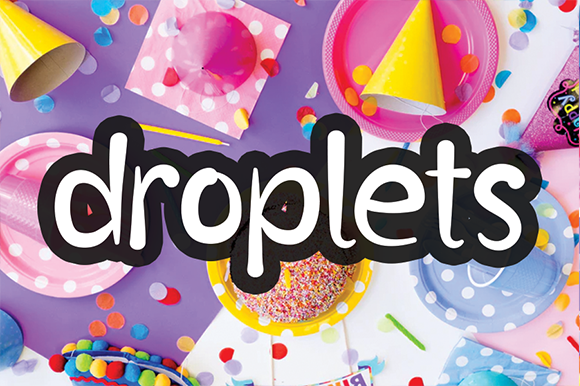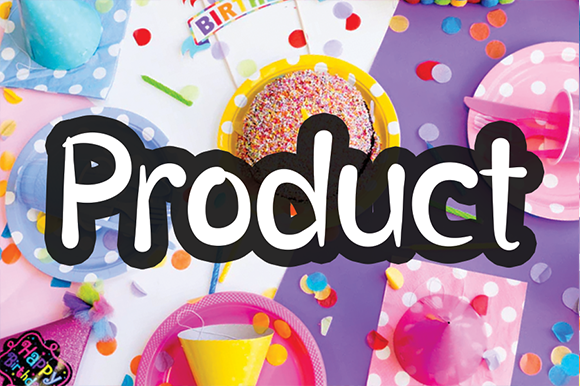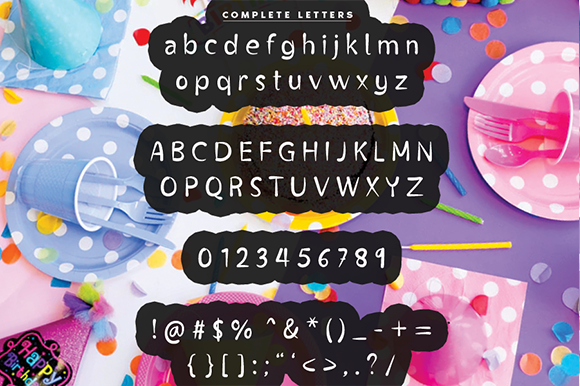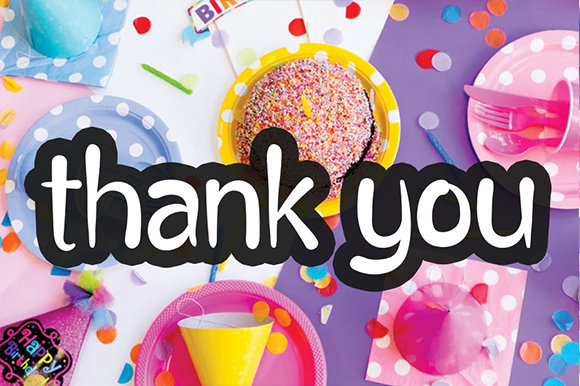
Introduction to Halangan Font
Halangan is a great display font, carefully handcrafted to become a true favorite.
Its casual charm makes it appear wonderfully down-to-earth, readable and, ultimately, incredibly versatile Halangan will look outstanding in any context, whether itโs being used on busy backgrounds or as a standalone headline.
Key Features of Halangan Font